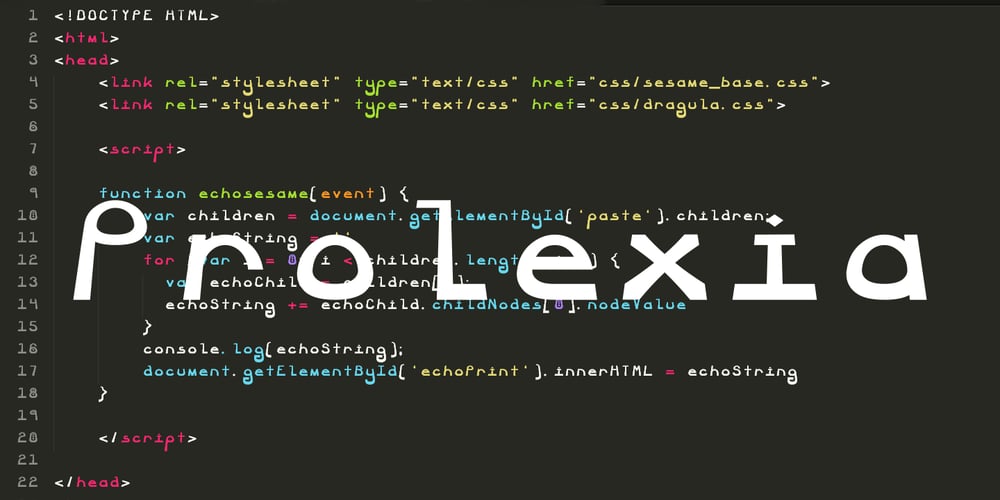
Prolexia Font Family was designed by Robert Goodman and published by Dyslexica. Prolexia contains 1 styles and family package options. Prolexia is designed to make the font friendly towards those with dyslexia. All the characters are unique with no rotation or mirroring, this makes it harder for the mind to mix up similar glyphs. The characters are made with the illusion of perspective: this helps orient characters in the correct direction to make mental reorientation harder. Finally the o shape is somewhat flattened, this also helps to counteract mental rotation of characters.